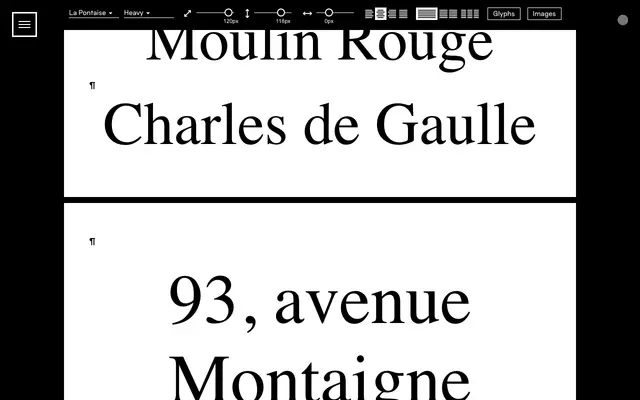
La Pontaise
A display serif from Or Type with a distinctly French editorial character, suited to luxury, cultural and gastronomic contexts.
The specimen leans heavily on French cultural references, from haute couture and Burgundy wine to Parisian addresses and heritage institutions, suggesting a typeface designed for high-end editorial and identity work. Its character reads as refined and period-inflected, pointing to use in luxury branding, restaurant menus, cultural publishing and poster typography. Details from the page give insufficient information to confirm weights, italics or designer.
The specimen's heavy French cultural and editorial flavour, combined with the large display sizes and decorative character shown throughout, places this firmly as a display serif with strong heritage and poster-typography associations.